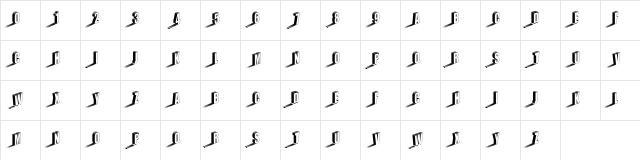
Three Dimensions Hollow Regular
Design Context for Three Dimensions Hollow Typeface
Three Dimensions Hollow is a composed and adaptable typeface that performs quietly and consistently across a wide range of design contexts.